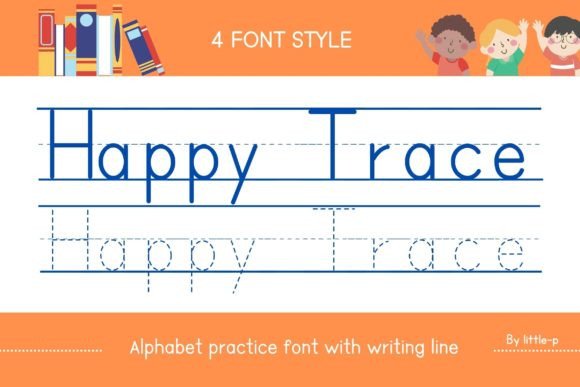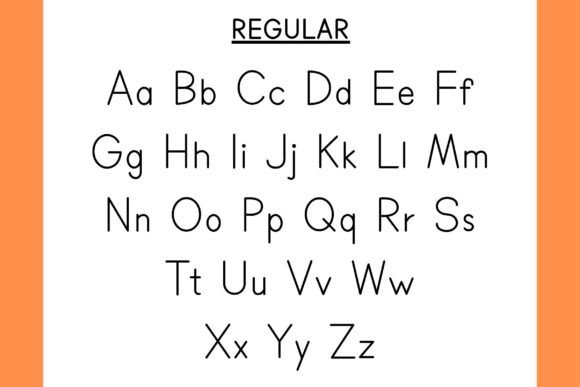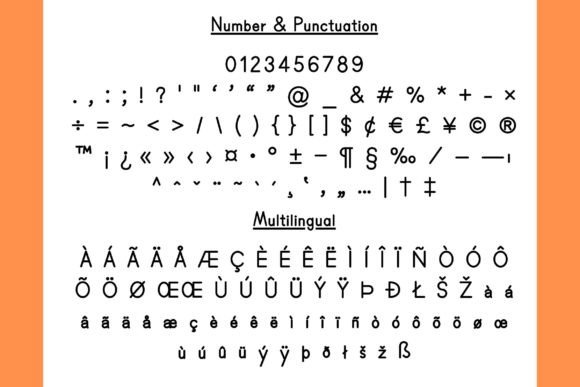
Happy Trace Font
Introducing “Happy Trace” the creative educational font designed for alphabet practice with dedicated writing lines. This font encompasses four distinct styles – Regular, Bold, Letter-line, and Dash-line, offering flexibility for creating customized worksheets. With the added convenience of utilizing the ‘space bar’ to generate writing lines, “Happy Trace” serves as a valuable tool for both students and teachers. This font is an ideal choice for crafting engaging worksheets, educational materials, alphabet exercises, math problems, or seamlessly integrating alphabets with various teaching subjects. Embrace the interactive potential of “Happy Trace” to enhance learning experiences and provide students with an innovative way to refine their skills while making teaching more dynamic and effective.